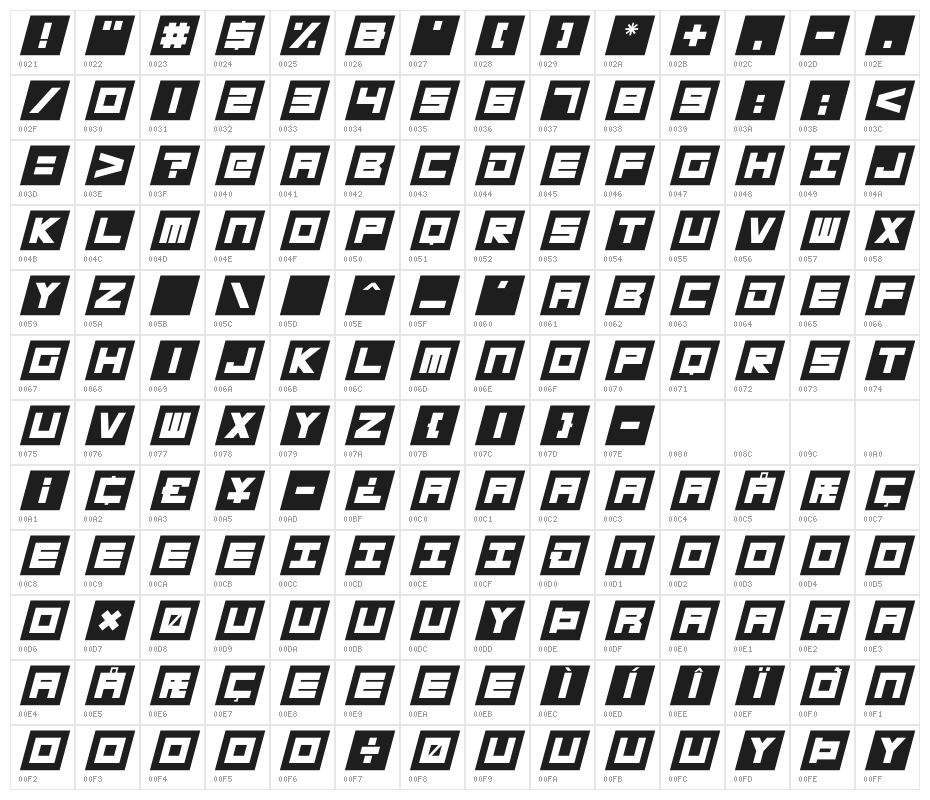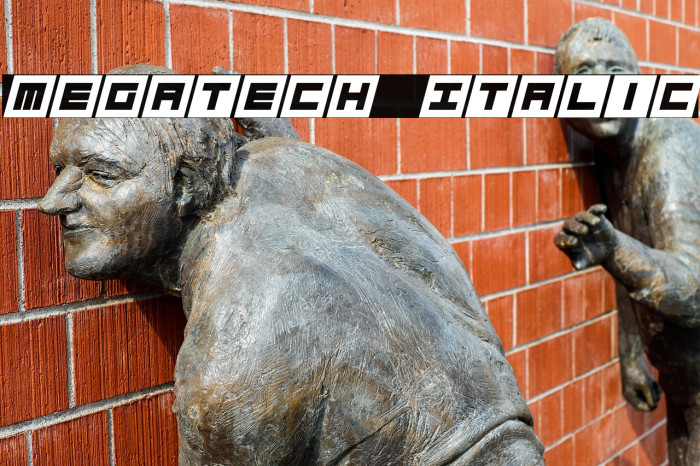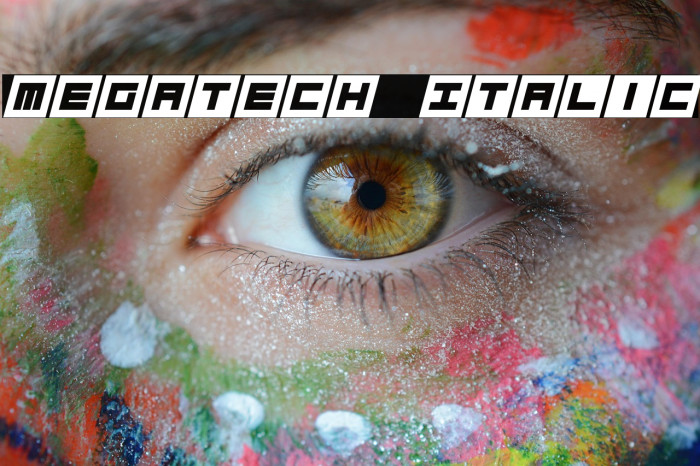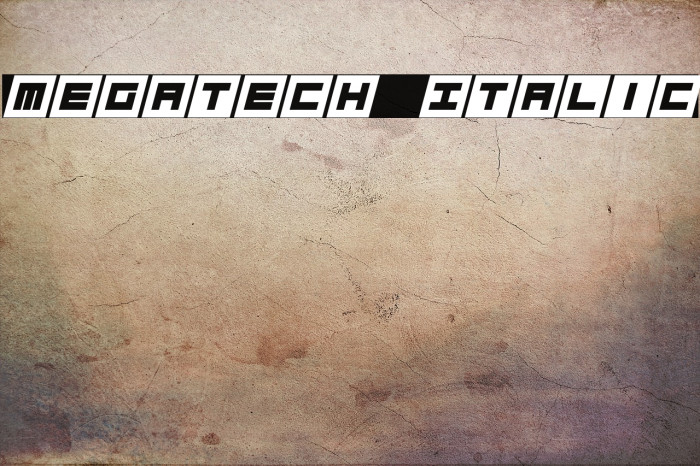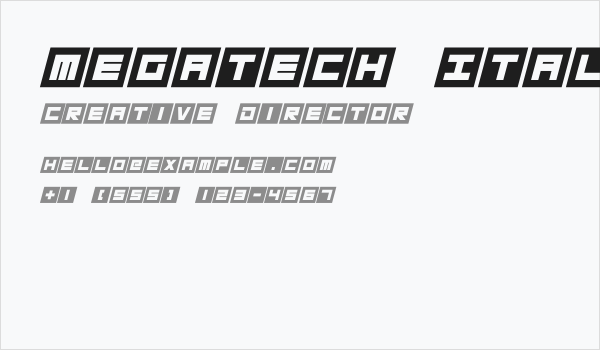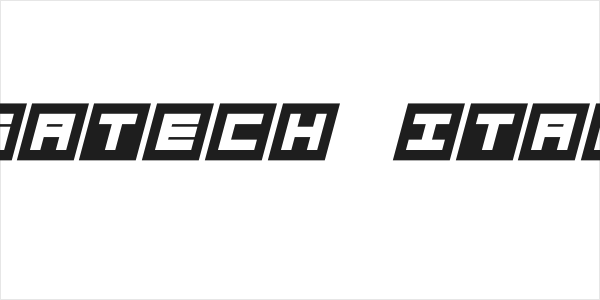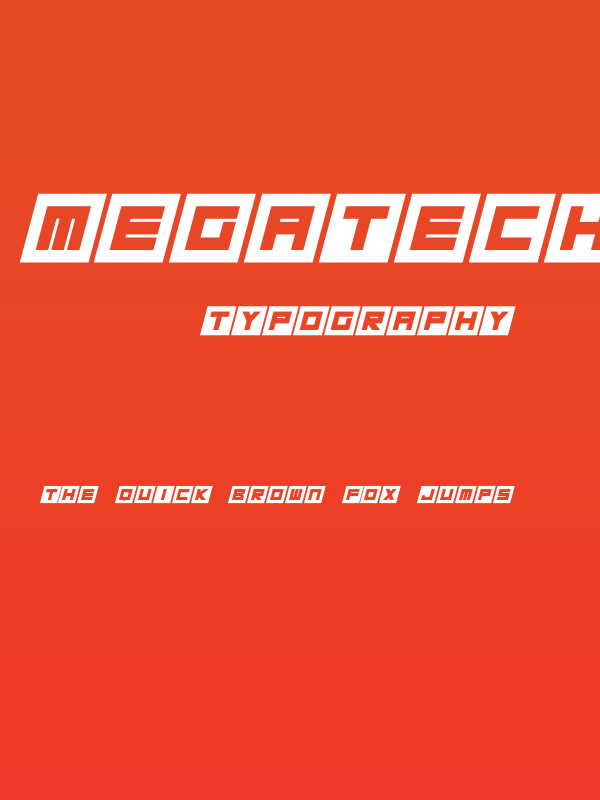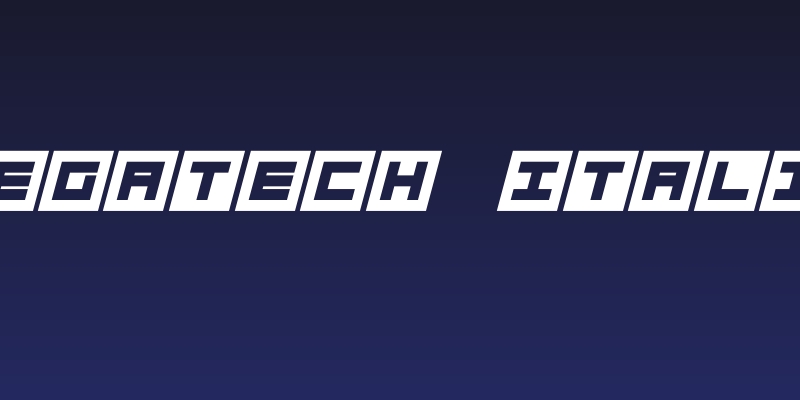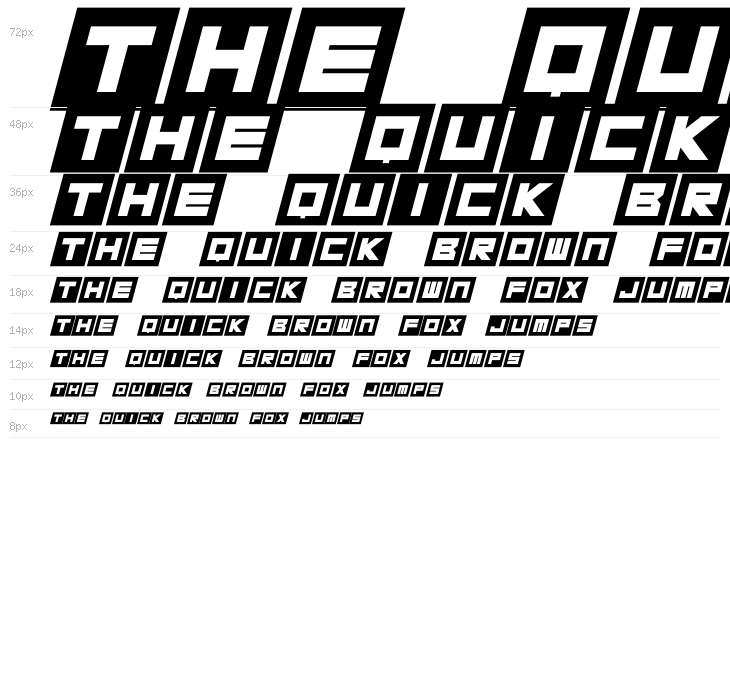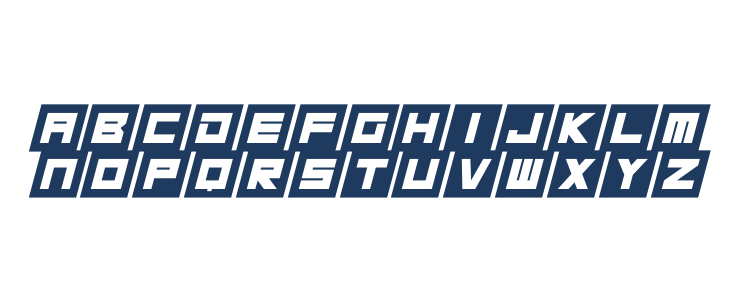
Megatech Italic Font
Megatech Italic Description
This font features a bold, futuristic design with a strong geometric influence. Each character is enclosed within a rectangular shape, giving it a distinct, blocky appearance. The letters are italicized, adding a dynamic and forward-leaning aspect to the overall style. The font is highly legible and makes a strong visual impact, suitable for attention-grabbing headlines or branding. The numbers and special characters maintain the same bold and structured design, ensuring consistency across all elements.
| Proposed Projects | Ideal for technology branding, sci-fi themed projects, video game titles, and futuristic posters. |